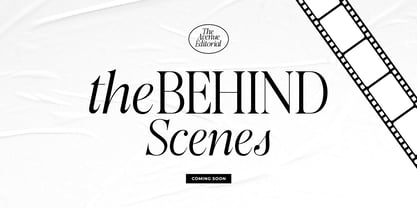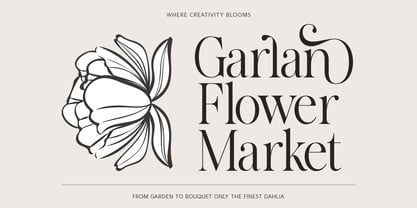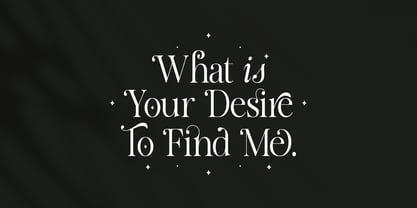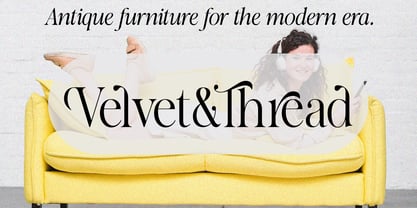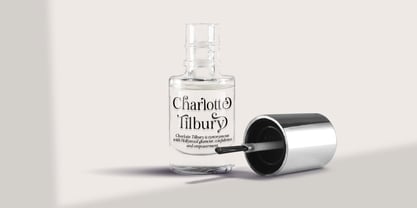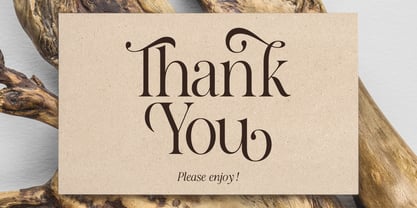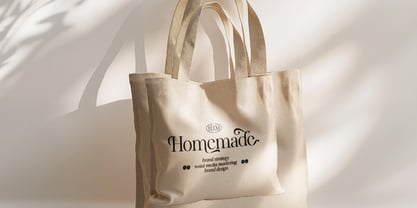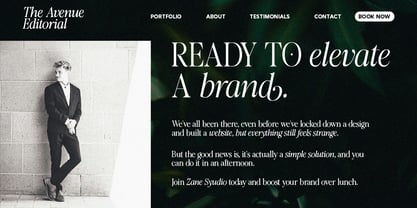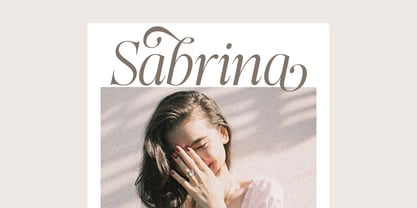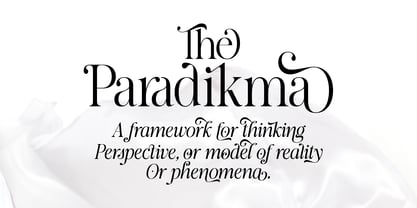
The Avenue Editorial
by Zane Studio
The The Avenue Editorial Font Family was designed by Mur Zani and published by Zane Studio. The Avenue Editorial contains 2 styles and family package options. More about this family
The Avenue Editorial is a sophisticated modern serif typeface that embodies luxury and elegance. Featuring a harmonious mix of bold lines and gentle curves, this font is perfect for high-end editorials, luxury branding, elegant invitations, and any design seeking a refined aesthetic. Offering both Regular and Italic styles with extensive multilingual support, The Avenue Editorial ensures versatility in your creative endeavors. Craft designs that are not only timeless but also captivating, making a powerful statement in every project with this exceptional font.